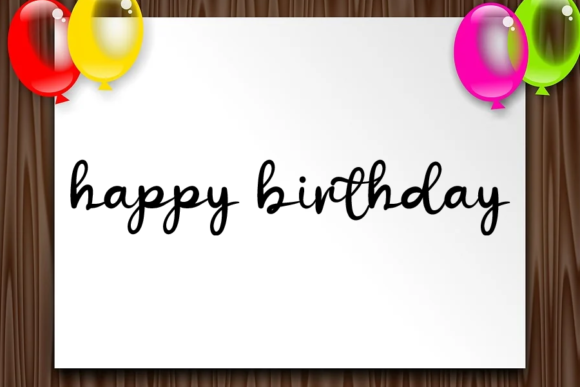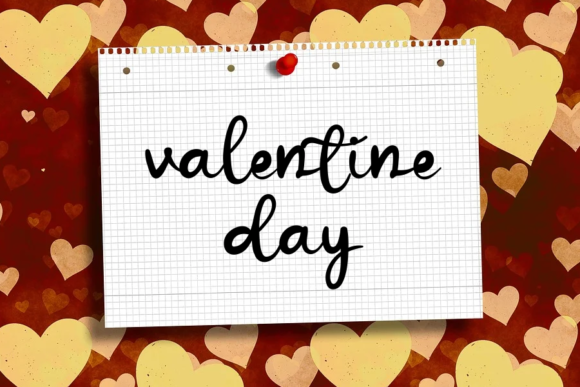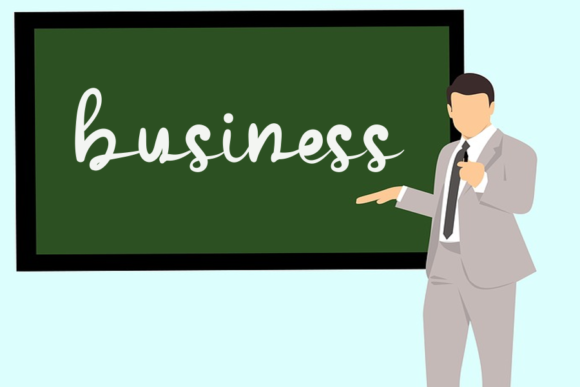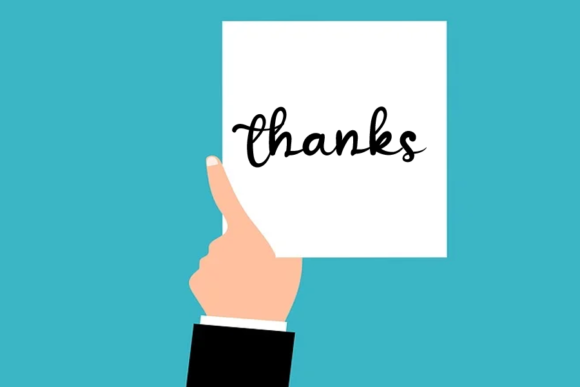
About Hello Signature Font
Hello Signature is a breathtakingly beautiful handwritten font that exudes elegance and sophistication. With its delicate and well-balanced letters, this font truly embodies the essence of a signature style. Each stroke is carefully crafted to create a masterpiece that will leave a lasting impression.
The distinct and refined look of Hello Signature sets it apart from other fonts. Its graceful curves and precise lines give it a timeless appeal, making it suitable for a wide range of design projects. Whether you’re creating wedding invitations, branding materials, logos, or any other design that requires a touch of elegance, Hello Signature is the perfect choice.
The versatility of Hello Signature is one of its standout features. It seamlessly adapts to various design styles and themes, adding a touch of sophistication and refinement to each project. Whether you’re aiming for a classic and timeless look or a modern and minimalist aesthetic, Hello Signature will elevate your designs to new heights.
Fall in love with the incredibly versatile style of Hello Signature and unleash your creativity. Let it inspire you to create stunning designs that capture attention and make a statement. Its versatility allows it to be used across a variety of platforms, from print to digital, ensuring your designs always stand out.
Embrace the elegance and versatility of Hello Signature and let it become your go-to font for creating spectacular designs. Its distinct and well-balanced letters will add a touch of sophistication to every project. Whether you’re a professional designer or someone looking to add a personal touch to their creations, Hello Signature will exceed your expectations.
Welcome Hello Signature to your font collection and let its exquisite style be the signature touch that sets your designs apart. With its delicate and elegant nature, this font is sure to make a lasting impression on anyone who sees it. Get ready to create truly spectacular designs with Hello Signature by your side.